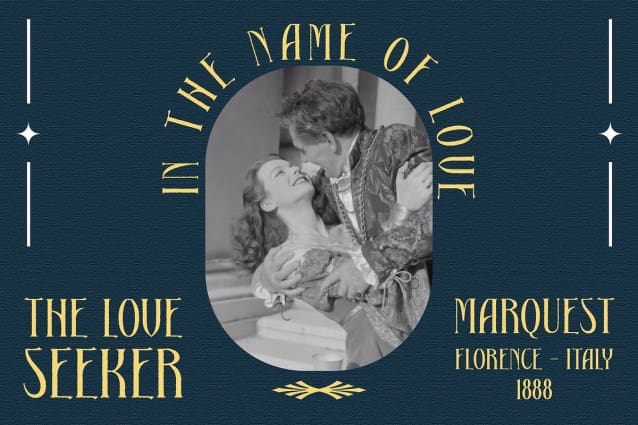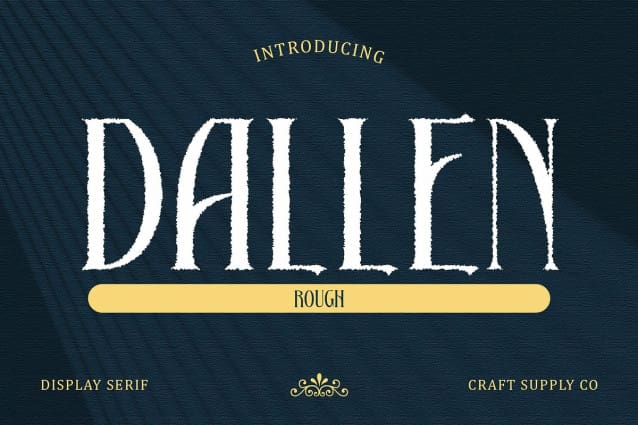
Dallen Rough Font
Dallen Rough Font: Timeless Elegance in Display Typography. Art Deco Inspiration Dallen Rough draws inspiration from the glamorous Art Deco era, infusing its serif display with an air of sophistication reminiscent of the Roaring Twenties.
Elegant Serif Design With its elegant serif design, This font exudes timeless charm and refinement, making it the perfect choice for projects requiring a touch of sophistication.
Vintage Appeal with a Modern Twist Combining vintage Art Deco aesthetics with contemporary rough effects, This font offers a unique blend of old-world allure and modern flair, ensuring your designs stand out.
Versatile for Display Needs Tailored for display purposes, This font is versatile enough to grace a variety of applications, from posters and packaging to headlines and branding materials.
Fusion of Elegance and Vintage Glamour This font merges the elegance of Art Deco-inspired serif typography with the rough texture effect, resulting in a font that effortlessly captures the essence of vintage glamour with a contemporary twist. Elevate your designs with the timeless sophistication of This font.